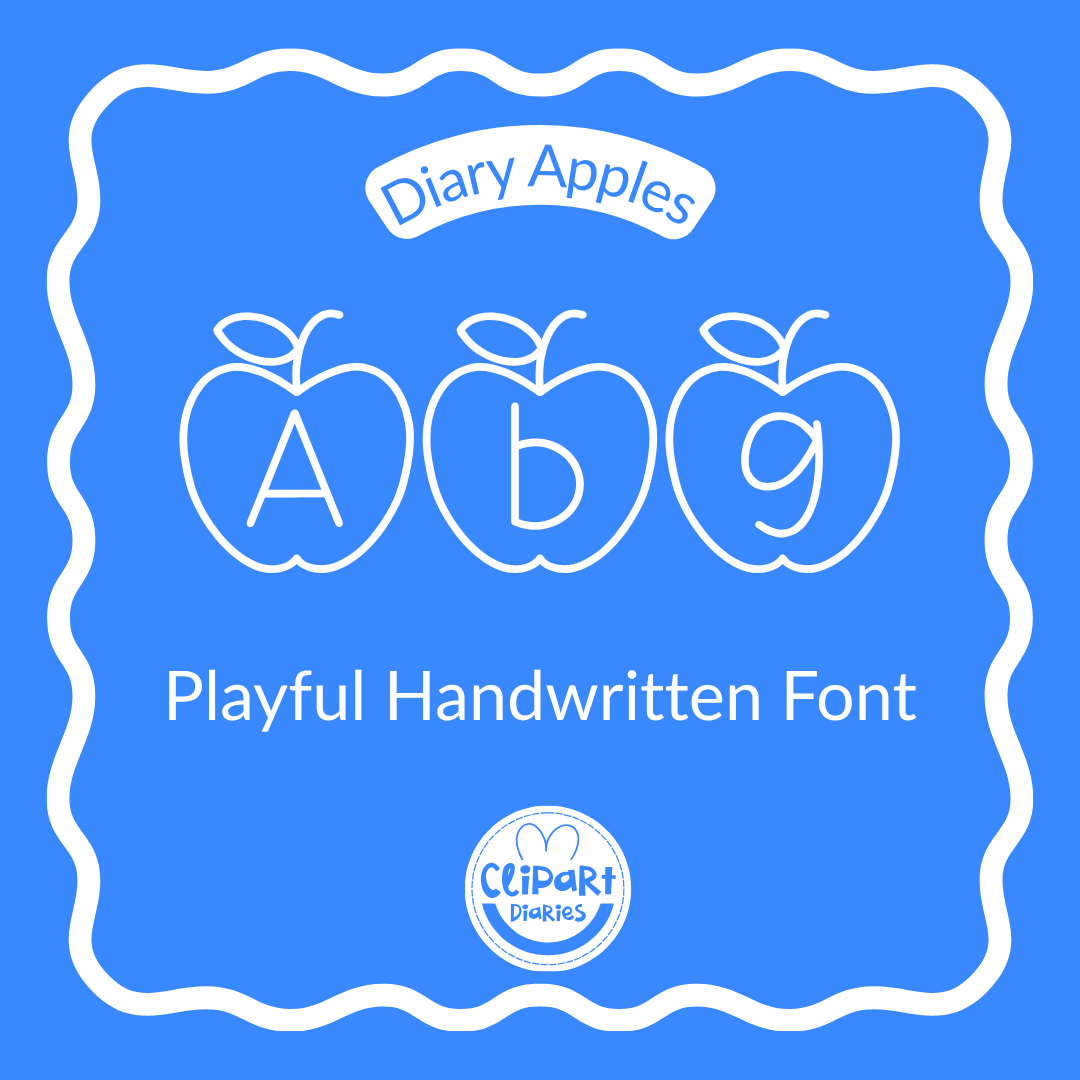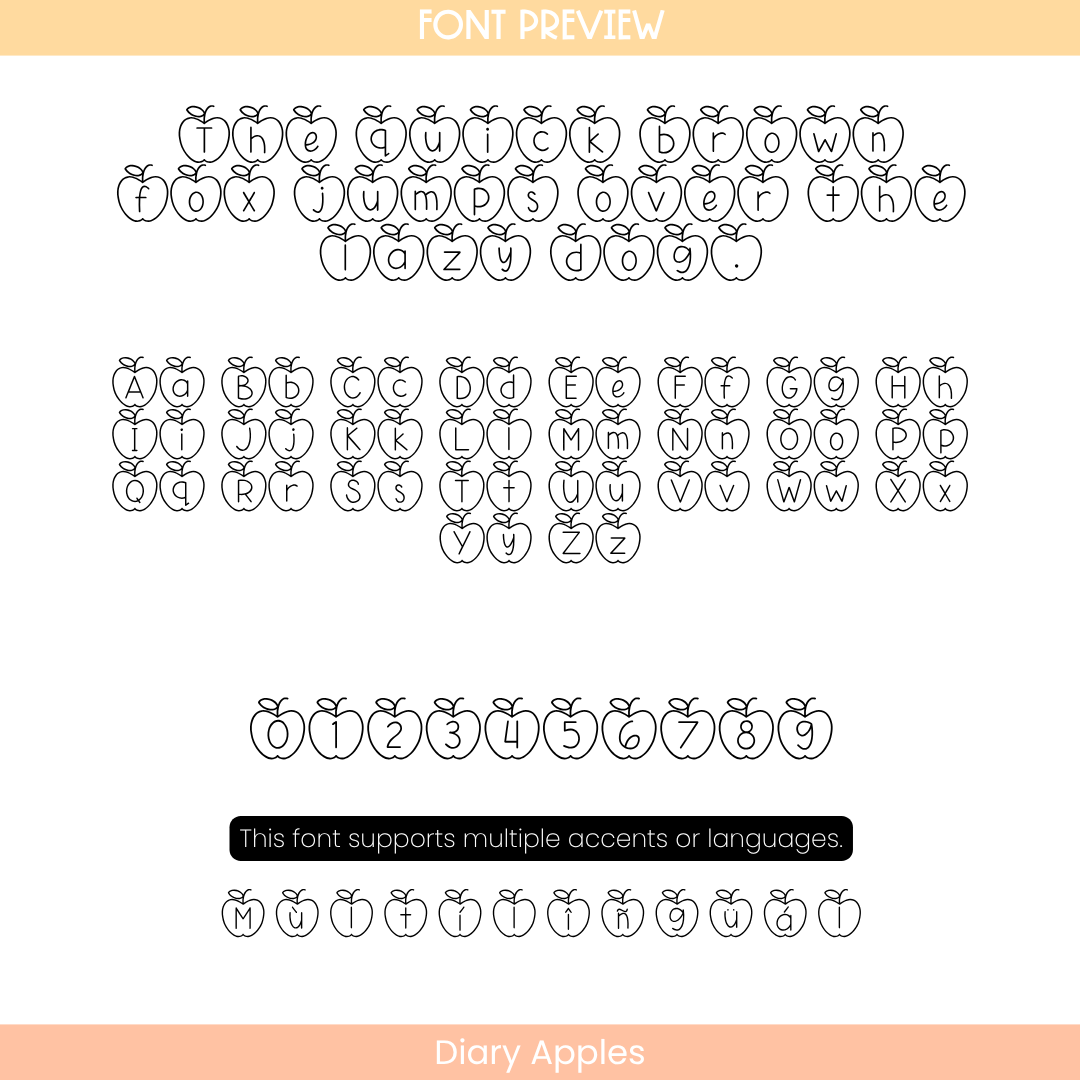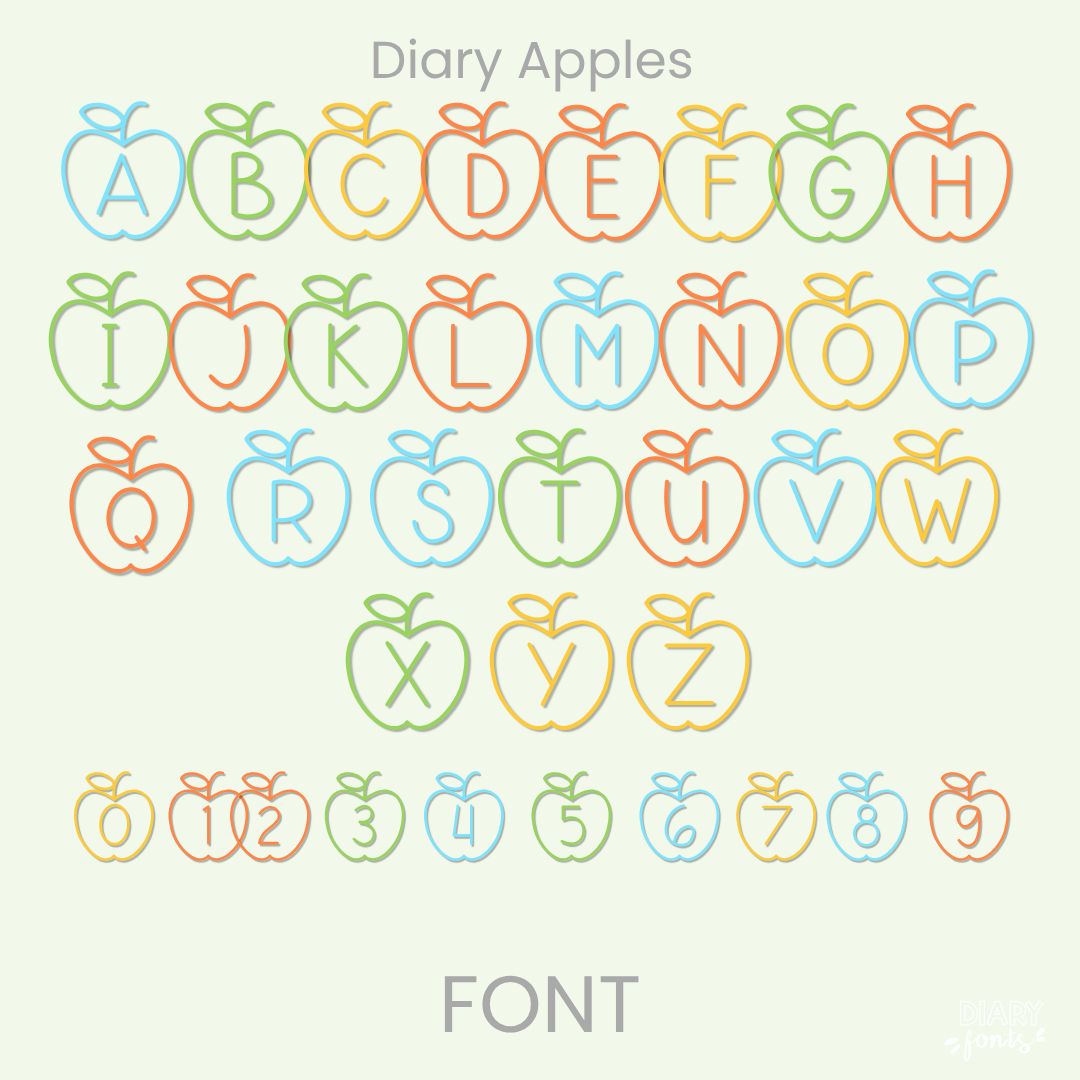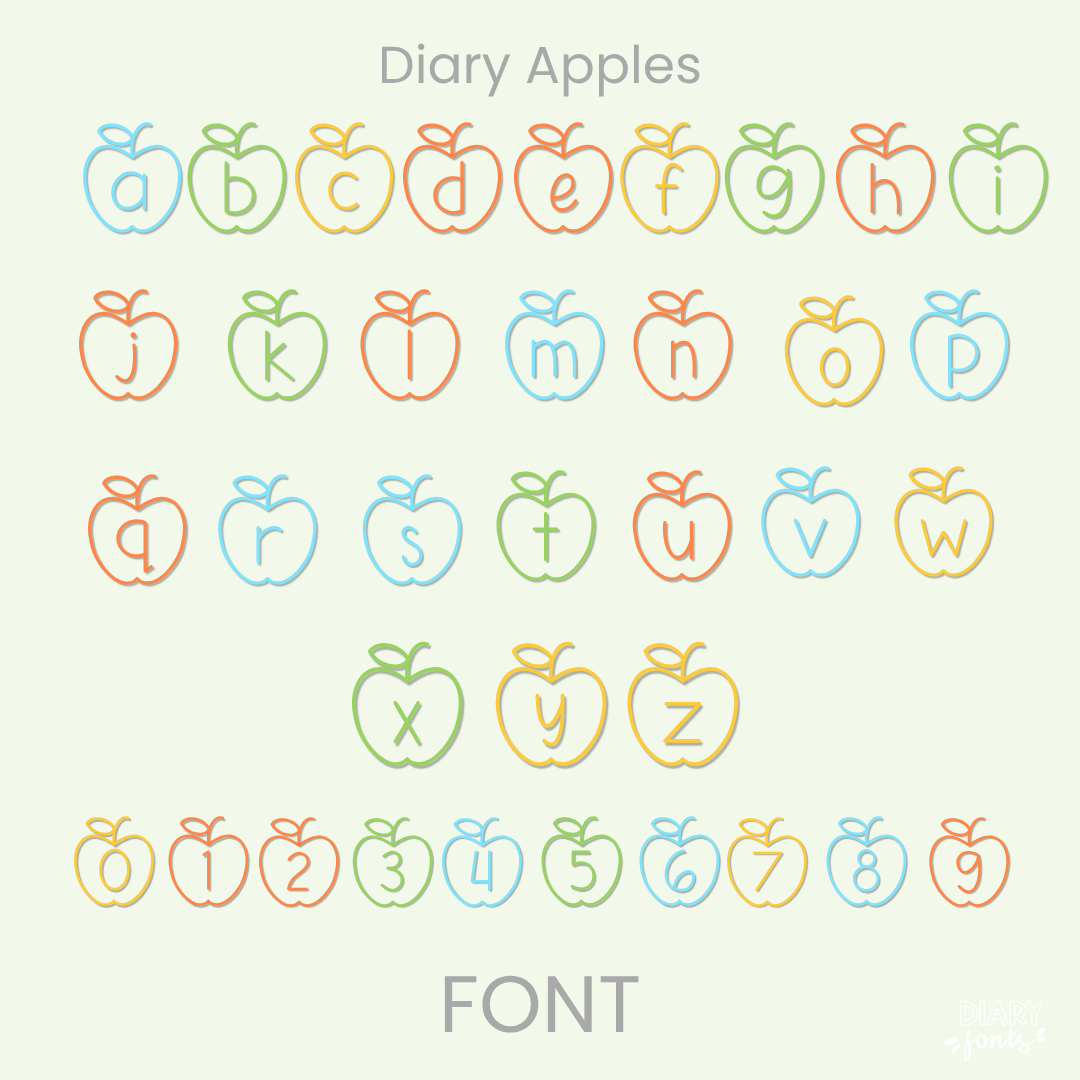
Infuse your creative projects with a sense of fun using Diary Apples, a playful handwritten font that combines a cheerful aesthetic with professional legibility. This versatile typeface includes a complete set of uppercase and lowercase letters, numbers 0–9, and support for multiple accents and languages, making it perfect for diverse educational content. It is built for seamless compatibility with major software such as MS Office and Adobe Apps, as well as popular iPad tools like GoodNotes and Procreate. Whether you are creating classroom decor, worksheets, or digital planners, Diary Apples provides a polished, hand-drawn look that is ideal for both personal and commercial use.